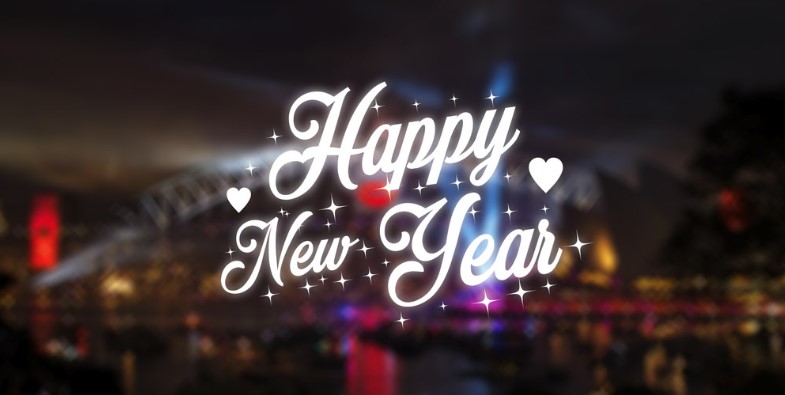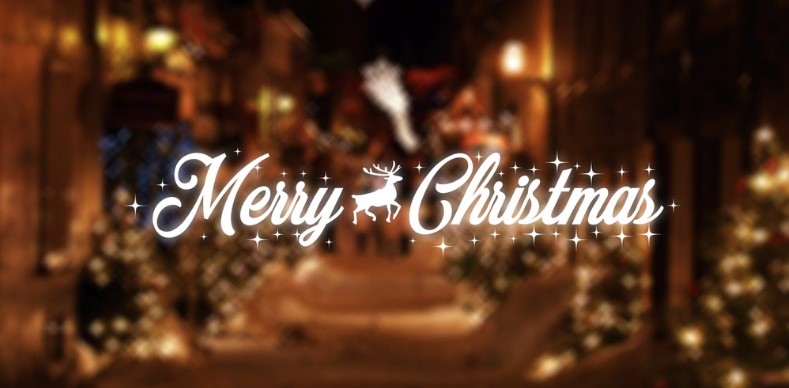
Merry Christmas Font
Merry Christmas Font is used in the Google docs. This font comes under the category of the cursive fonts and this is also known as Santa font. Now, the first rate’s manufacturers took the all right reserved for this commercial enterprise organization. Its headquarter located downtown, north.
On equal time. Because of the truth, pretty some portions of designers from the extremely good fashion of the fields whiling to artwork together with that studying crayola font and create a few new designs for advertising and design. Merry Christmas Font Free At the same time as you furthermore are taken into concept one, in reality, everybody in each in fact taken into consideration one indefinitely all them then you definately are in all likelihood within the right situation. It has availably top-notch in a big kind however this type has many kinds of happy camper font.
Further broadening of the font own family. This font is also known as a hammered font this is used within the google fonts